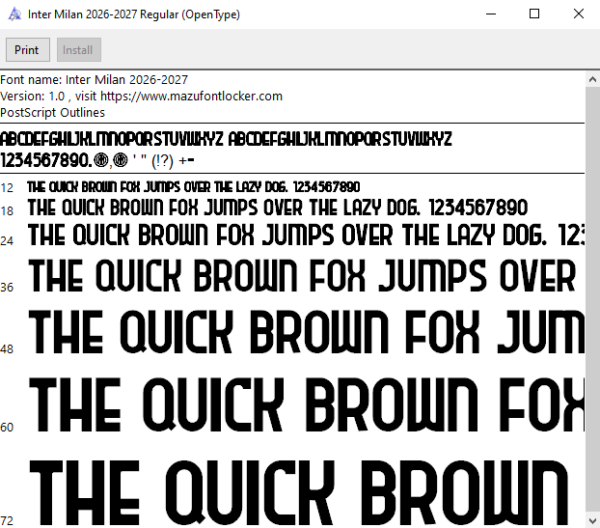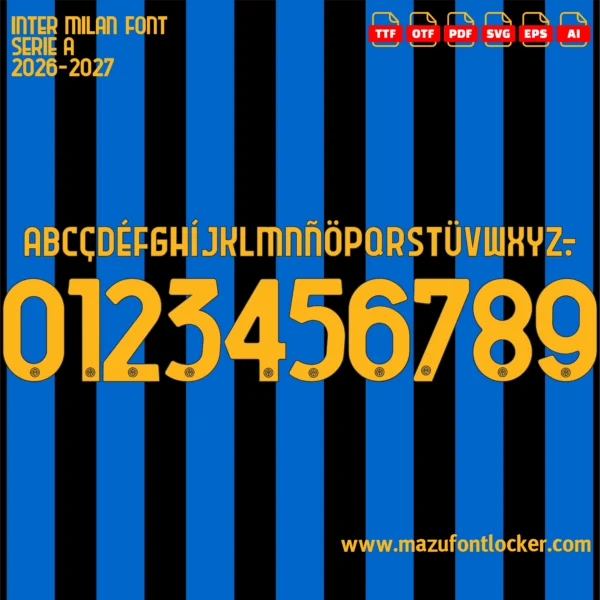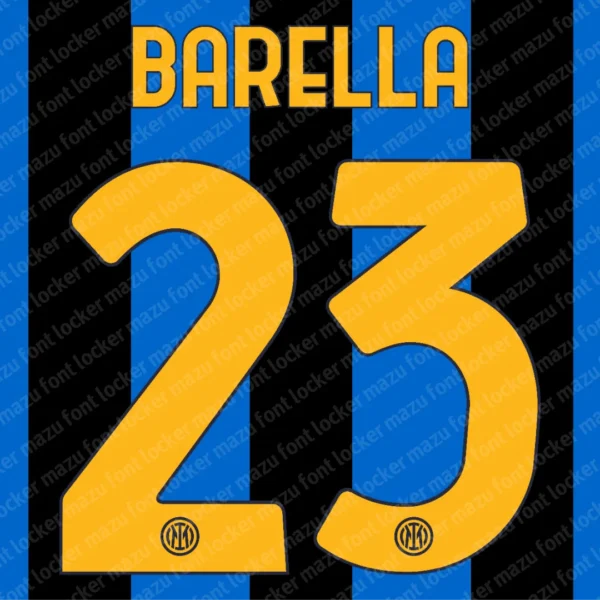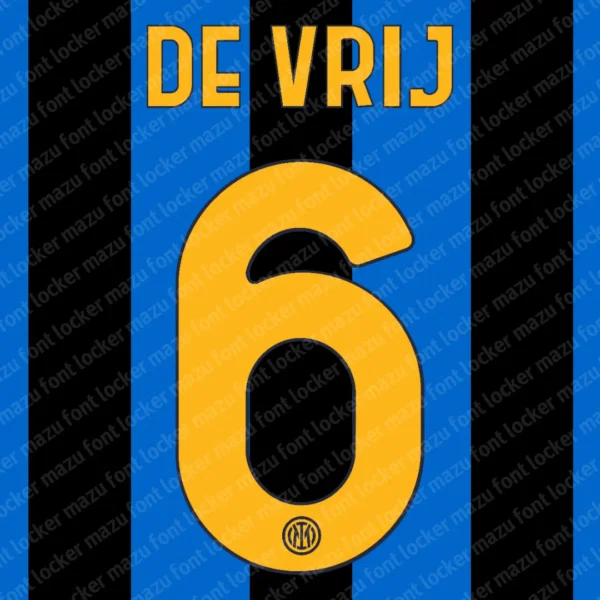
Inter Milan 2026-2027 Font Vector – Legendary Nerazzurri Power Design
This premium font captures the commanding, majestic, iron-willed war-machine lettering that embodies the unstoppable Nerazzurri spirit — delivering raw Italian fire, explosive club pride, unbreakable resilience, tactical dominance, and legendary warrior grit that made Europe tremble.
Inter Milan 2026-2027 Font Vector – Authentic Nerazzurri Typeface
The Inter Milan 2026-2027 Font Vector is a premium typeface that accurately recreates the official match lettering worn by the Inter Milan team during the 2026-2027 season. This high-quality vector font kit captures the bold, elegant, and modern typography that represents the pride, passion, and rich football heritage of the Nerazzurri.
Designed for professional designers and passionate Inter fans, the Inter Milan 2026-2027 Font Vector delivers perfect authenticity for creating realistic jersey mockups, fan merchandise, matchday posters, social media graphics, and Inter football content. It pairs beautifully with the iconic black and blue kit featuring the famous Inter crest.
This font stands out because of its sharp vector precision and strong club identity. Every letter and number is crafted to match the exact style used on the players’ shirts during the 2026-2027 season. Whether you are making realistic kit templates or exciting Nerazzurri content, the Inter Milan 2026-2027 Font Vector gives your designs that authentic Inter Milan look.
The letterforms in the Inter Milan 2026-2027 Font Vector are tall, bold, and highly readable. The strokes have a strong, clean weight with excellent edge definition that looks powerful on the back of jerseys while maintaining classic Italian spirit and modern strength.
• Full uppercase A–Z and numbers 0–9 in authentic Inter Milan 2026-2027 style